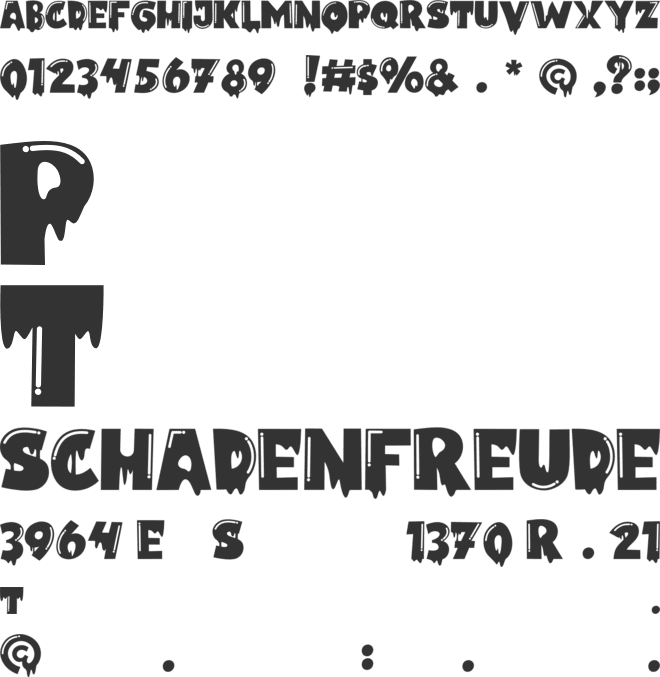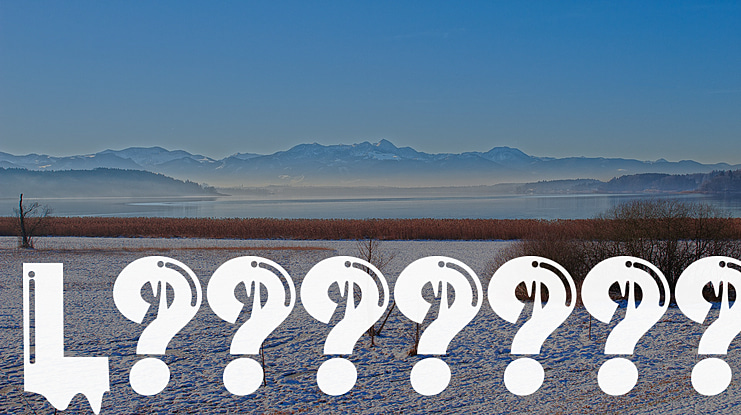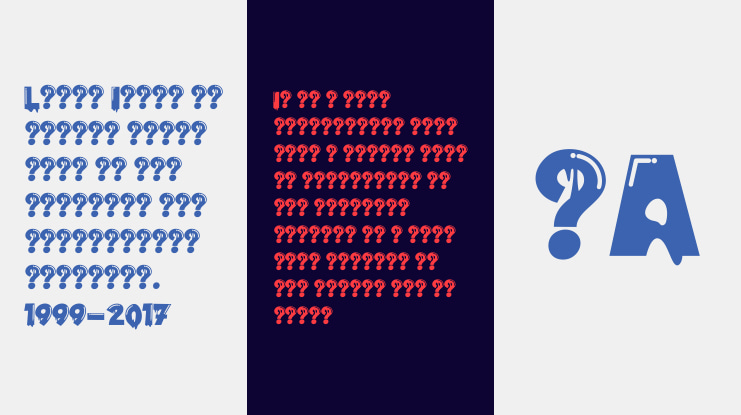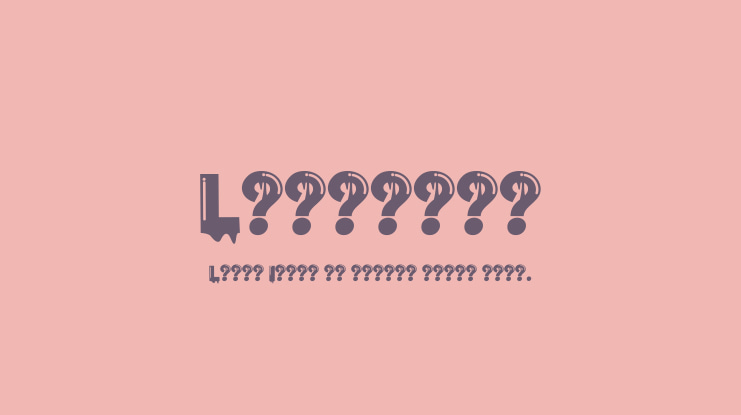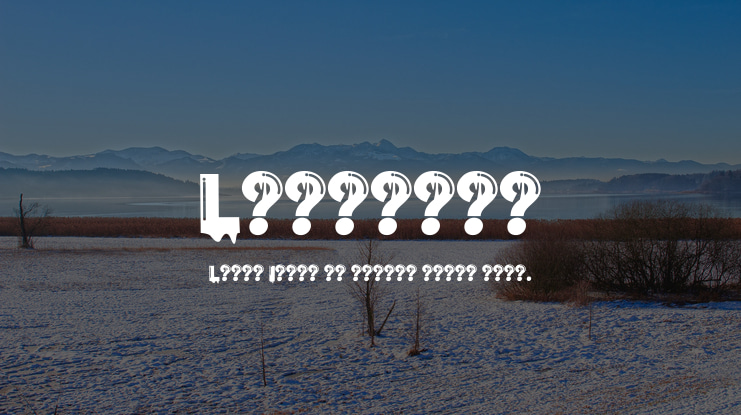
Lukalama Font
Lukalama is a horror-themed fonts display. with a thick shape plus the accent melts like old blood dripping. It is very suitable for Halloween parties, horror movies and games, games with the theme of zombies and other monsters. Because nothing is more horror than old wounds (luka lama)